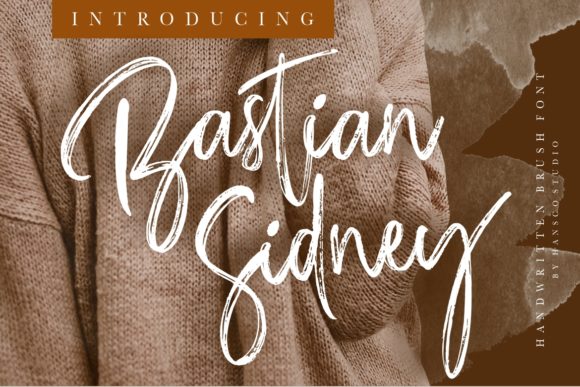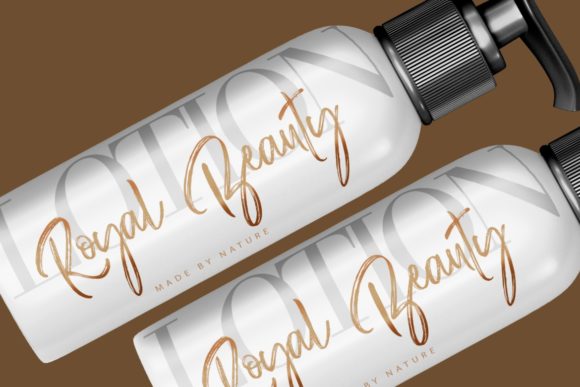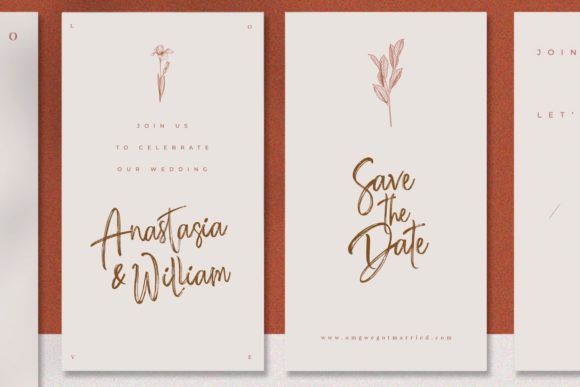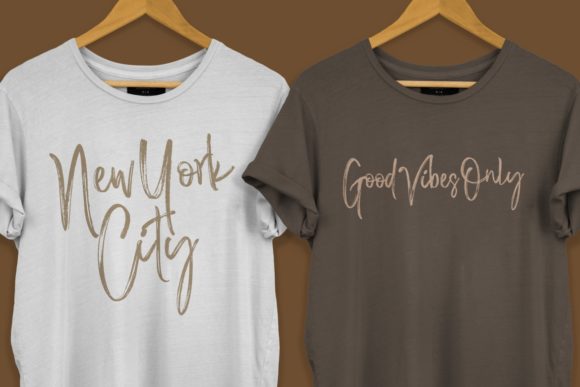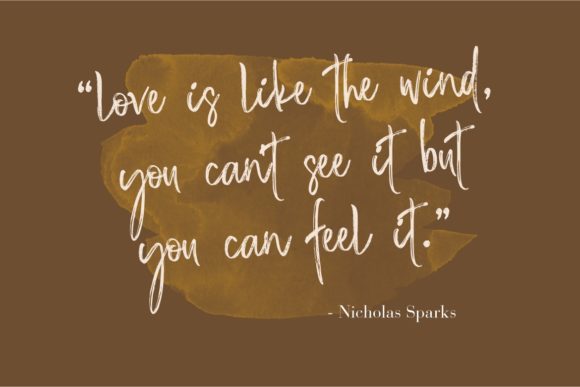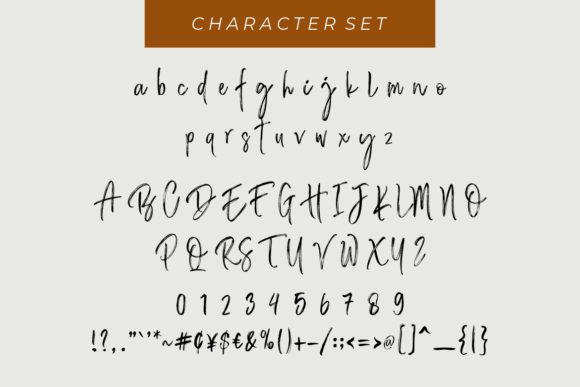
Bastian Sidney Font
About Bastian Sidney Font
Bastian Sidney is a cool brushed script font. It’s perfect for creating logos, product branding, posters, social media posts and much more! Ignite your creativity with this fun font.